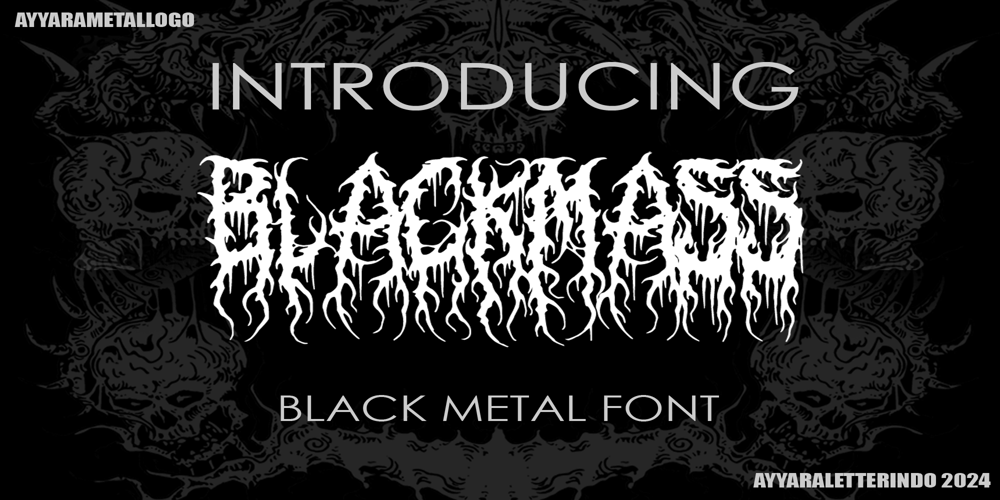
Black Mass
Black Mass font
Black Mass Font Family was designed by published by Ayyara Letterindo. Black Mass contains 1 styles and family package options. Black Mass is a raw black metal font that can be used for your logos or clothing brand. This font is a great way to create your song lyrics text on your music album or back print on your cool t-shirts as merchandise.You can immediately make your amazing creativity with the help of this unique font. Combine it with any black metal ornaments and make your cool metal design with easy!